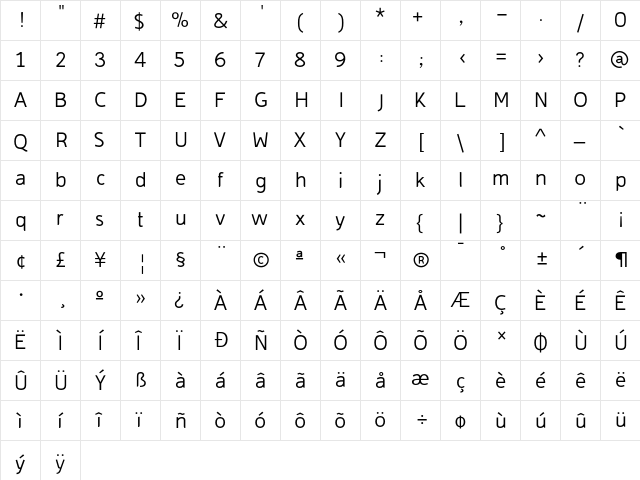
Domestos98 Thin
Design Context for Domestos98 Typeface
Domestos98 takes a measured approach to typography — its balanced proportions and neutral character make it a reliable workhorse for both digital and print work. The delicate stroke weight brings airiness and refinement to layouts.
Pro Tip: Use Domestos98 in both headline and body roles to test its range before committing to a single application.